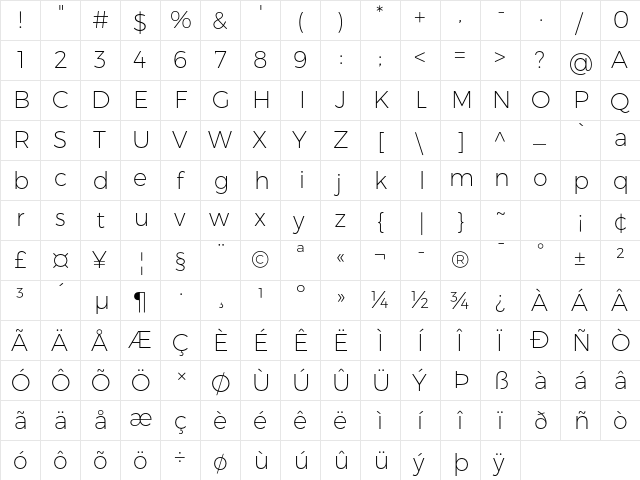
Trueno UltraLight
| Foundry | Julieta Ulanovsky |
| Designer | Julieta Ulanovsky |
Design Context for Trueno Typeface
Trueno offers clean, dependable letterforms without strong stylistic allegiance, making it a practical choice for designers who need flexibility. The delicate stroke weight brings airiness and refinement to layouts.